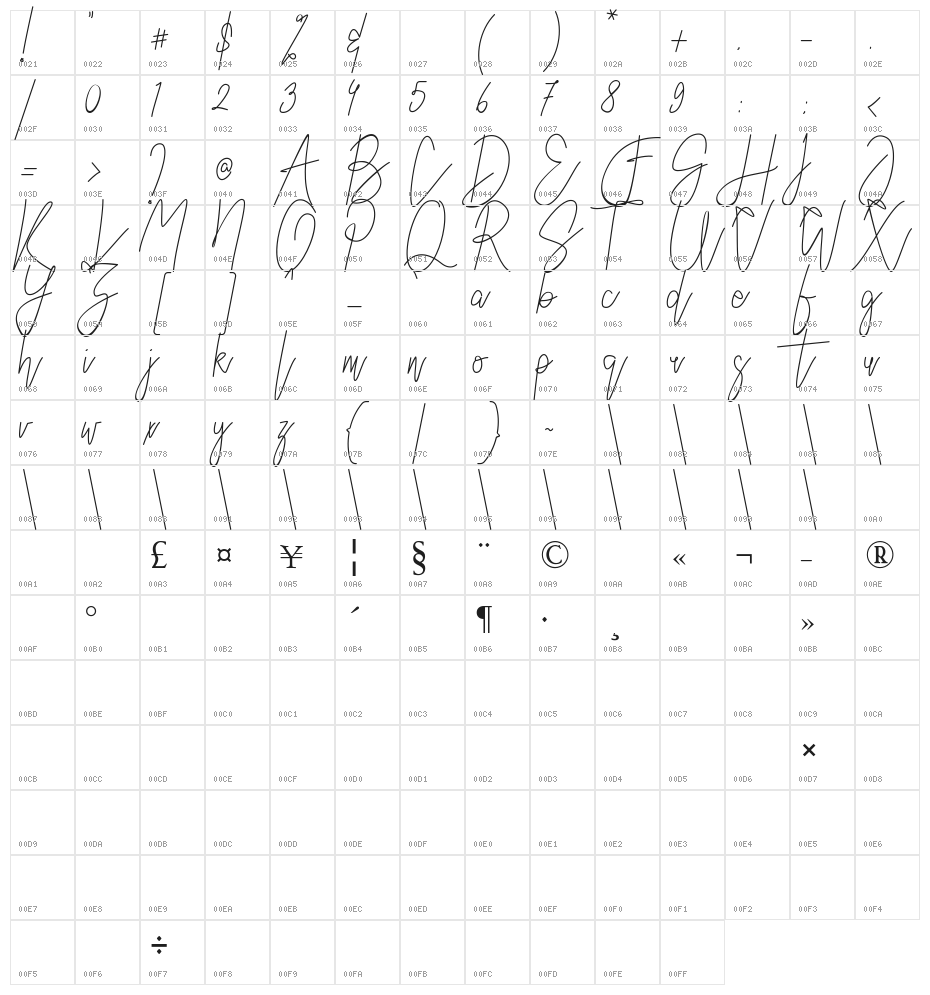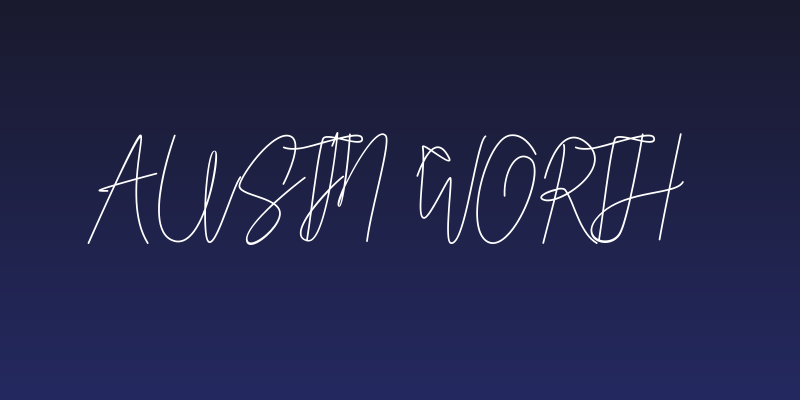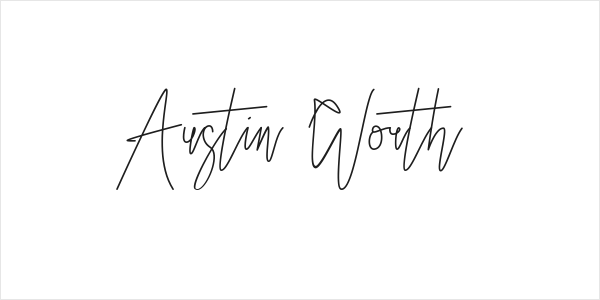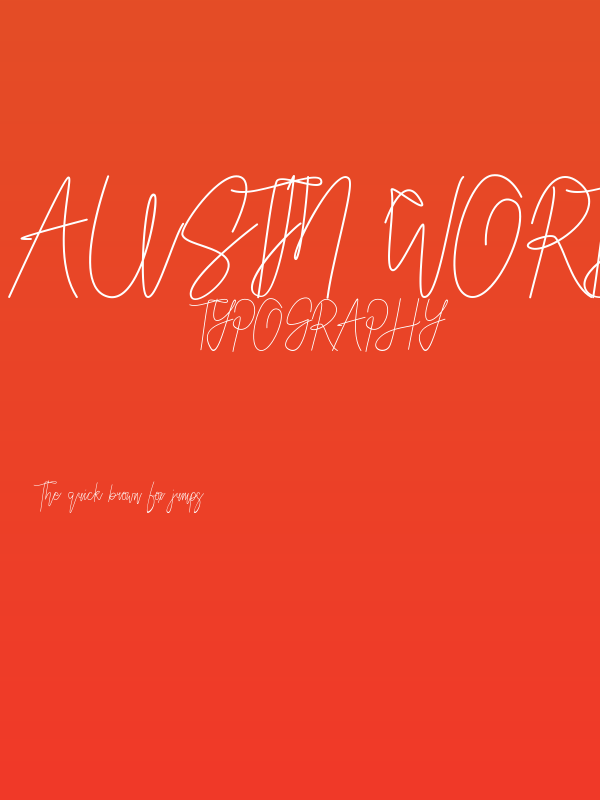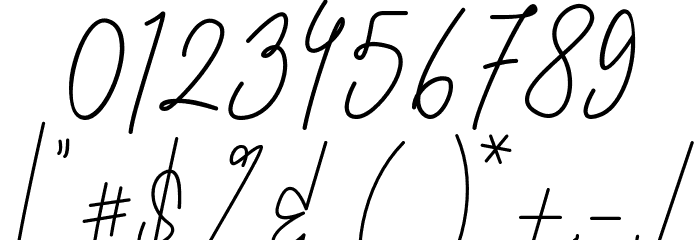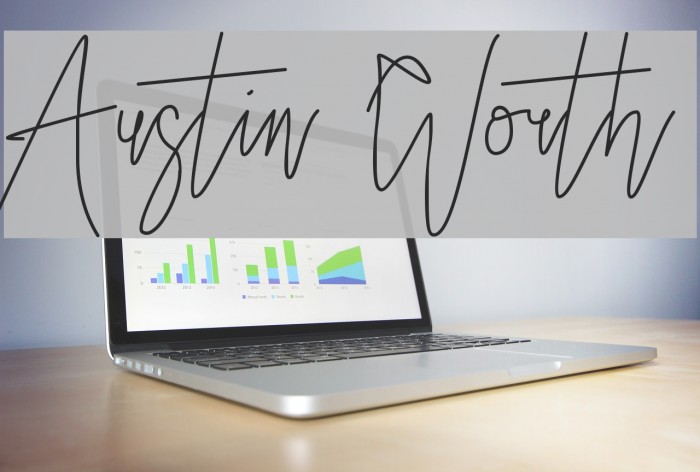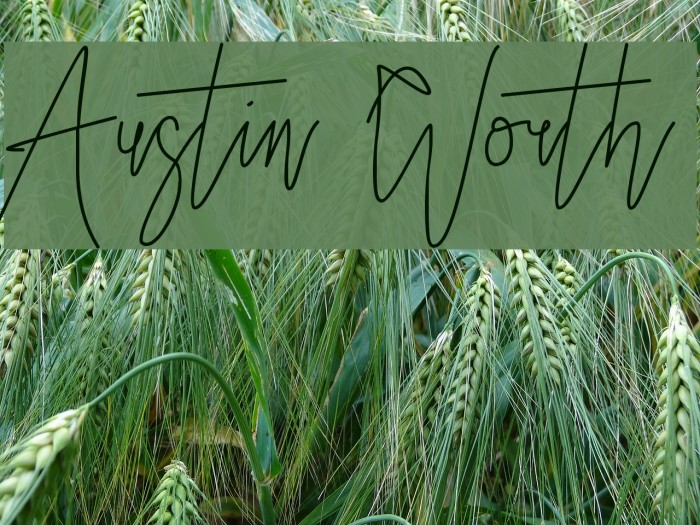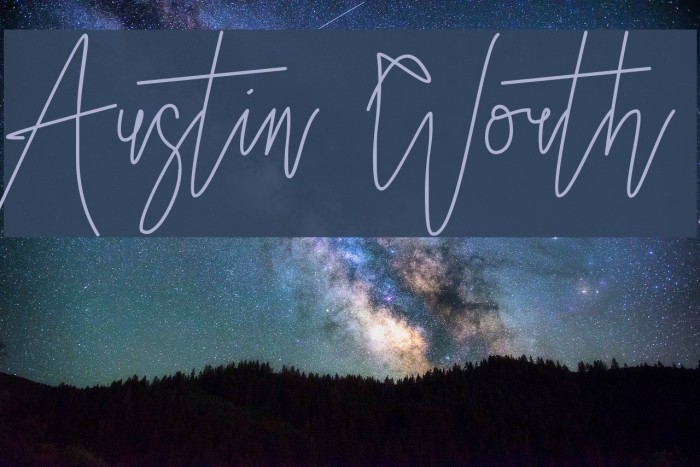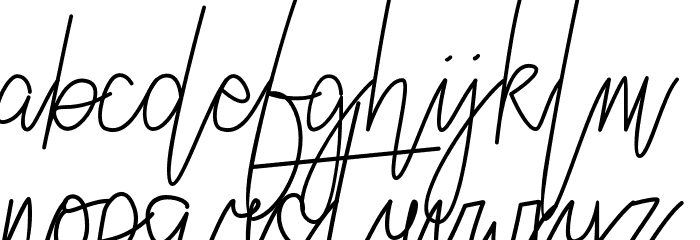
Austin Worth Font
Austin Worth Description
This font features a unique, handwritten style with a modern flair. The characters are elongated and slightly slanted, giving them a dynamic and fluid appearance. The uppercase letters are distinct with a playful, artistic touch, while the lowercase letters maintain a consistent flow, enhancing readability. The numbers are well-proportioned, complementing the overall aesthetic. Special characters are creatively integrated, adding to the font's versatility. The thin strokes and varying line thicknesses contribute to a sophisticated, yet approachable look, making it suitable for a variety of design projects.